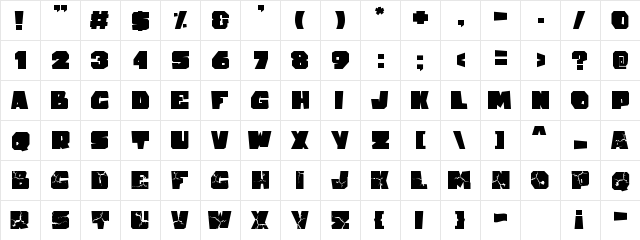
Cracked stone Regular
| Designer | Toni Dzulham |
Design Context for Cracked stone Typeface
Cracked stone is a composed and adaptable typeface that performs quietly and consistently across a wide range of design contexts.